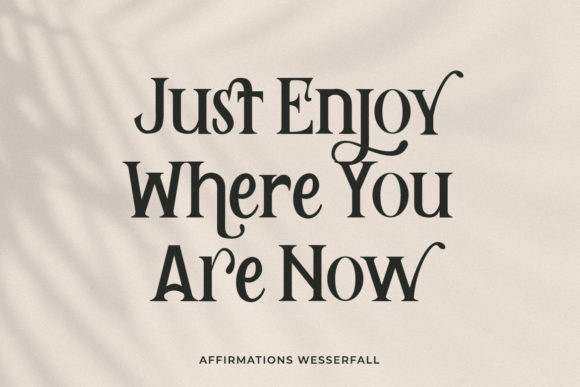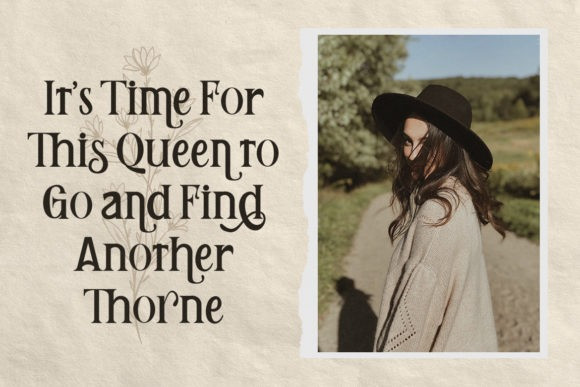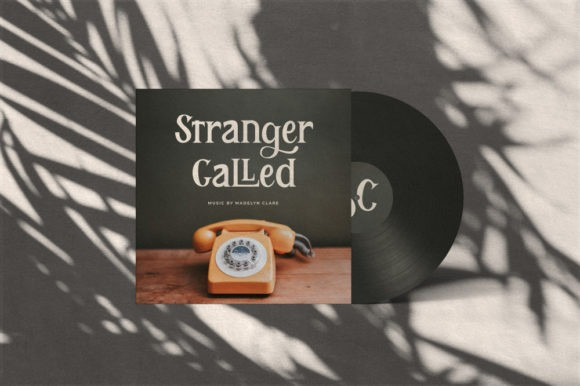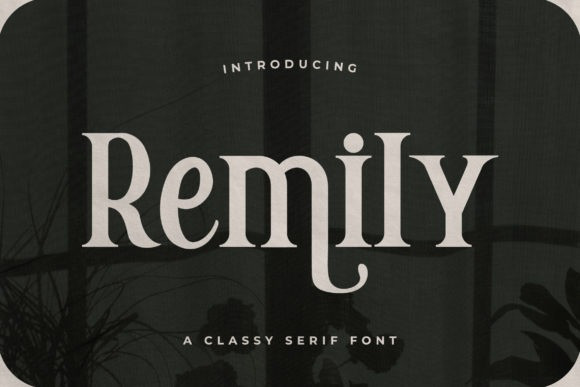
Remily Serif Font is a retro styled font with bold curves, it gives off a groovy ’70s vibe with serifs that take it a bit back to the traditional. This font is PUA encoded which means you can access all of the glyphs and swashes with ease! Fall in love with its incredibly versatile style and use it to create spectacular designs!